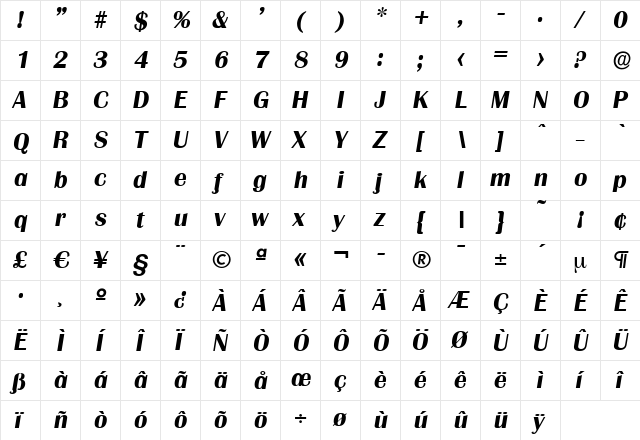
JesseBecker Bold Italic
Design Context for JesseBecker Typeface
JesseBecker takes a measured approach to typography — its balanced proportions and neutral character make it a reliable workhorse for both digital and print work. The slanted form adds forward momentum and visual energy. The heavy weight commands attention and anchors typographic hierarchies.
Pro Tip: Use JesseBecker for emphasis, pull quotes, and subheadings where its slanted energy can add rhythm to the layout.